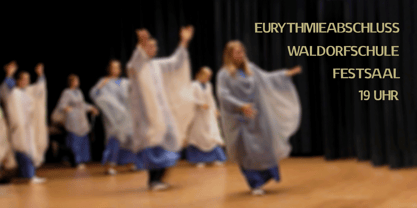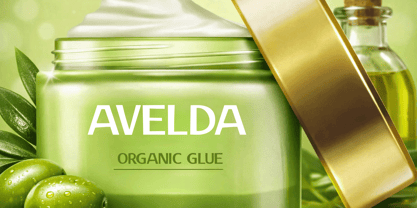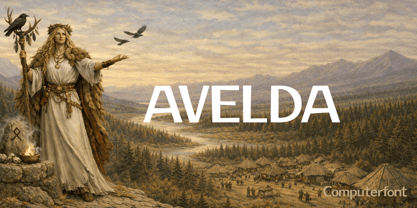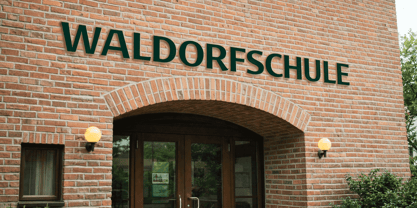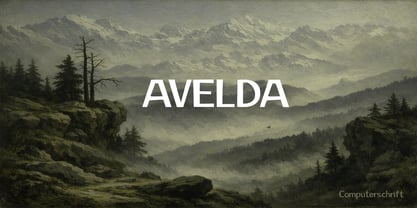
Avelda
The Waldorf typeface, originally designed digitally by Joachim Frank in the 1990s, draws inspiration from the organic forms of anthroposophy. With the introduction of the Avelda typeface, this iconic font has been reimagined after more than 30 years, presenting a clearer, more elegant, and modern aesthetic while honoring its organic roots. Reflecting the diversity of nature, Avelda features a harmonious blend of thick and thin strokes, along with tall and short letters, ensuring that no two characters are alike. The letters interact naturally; some are closely spaced, while others maintain an elegant distance. Certain letters stand out prominently, while others subtly blend into the corners, creating a typeface that embodies the beauty and diversity of nature. Ideal for branding, editorial design, and web applications, Avelda, with its distinctive character and OpenType features, provides a unique and versatile typographic solution. The name Avelda is derived from Veleda: it comes from a Germanic seeress of the Bructeri tribe. According to Tacitus, this tall maiden lived secluded from the profane world in a tower near the Lippe River. In this role, the seeress communicated only through relatives who relayed her inquiries and answers. Today, she would likely use a computer (and her script).
Anthroposophical fonts for everybody.In nature there are no right angles, straight lines or complete uniformity, but instead round corners, varying thicknesses and all kinds of variability. This is what the anthroposophical movement created in their buildings, their art, in their music – and also in their lettering.Take a look at the brand of Weleda (the natural cosmetics company), Demeter (one of the biggest organic foods companies), Filderklinik (a great anthroposophical hospital in Germany) and you will see these great companies work with different but organic letter styles.